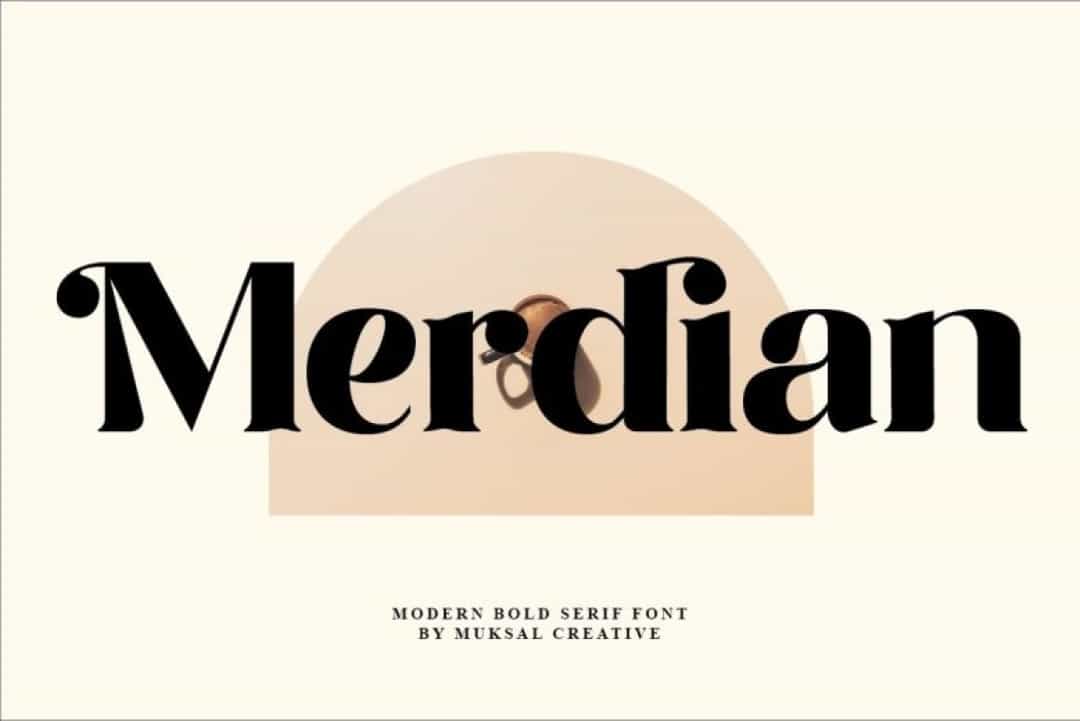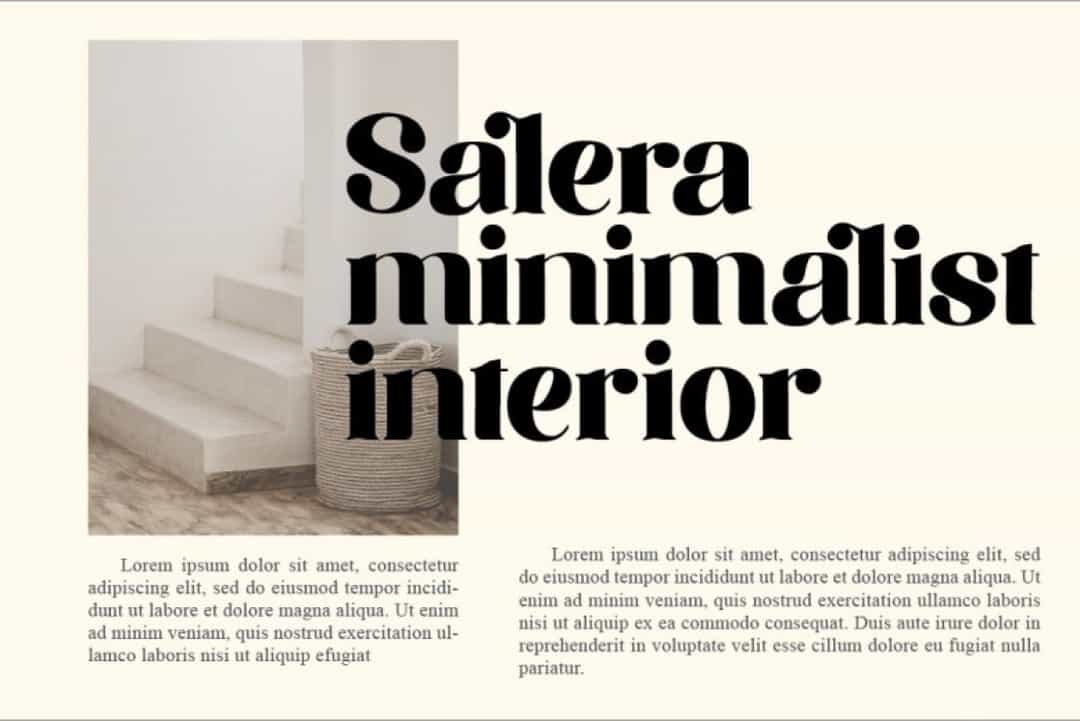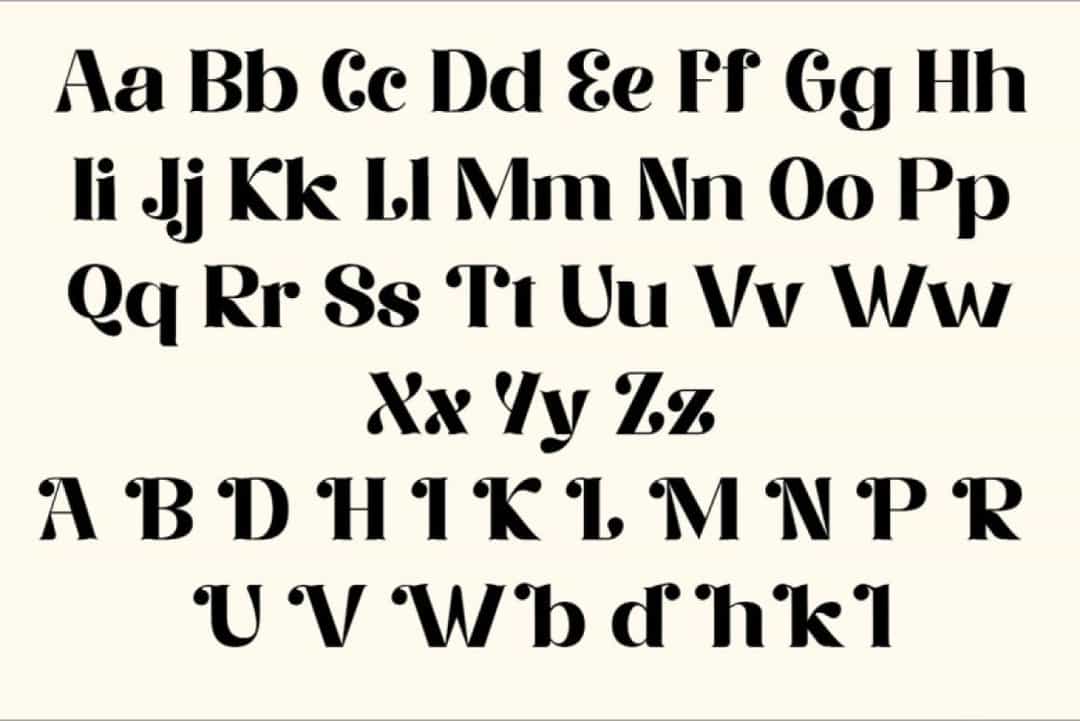
Merdian Modern Bold Serif Font is an exceptional font with beautiful alternate characters and special glyphs ornaments to enhance multilingual support. A highly flexible font, it can be used both small and large sizes with ease; perfect for editorial projects such as logo design, clothing branding, product packaging design, magazine headers or just as a beautiful text overlay for images.